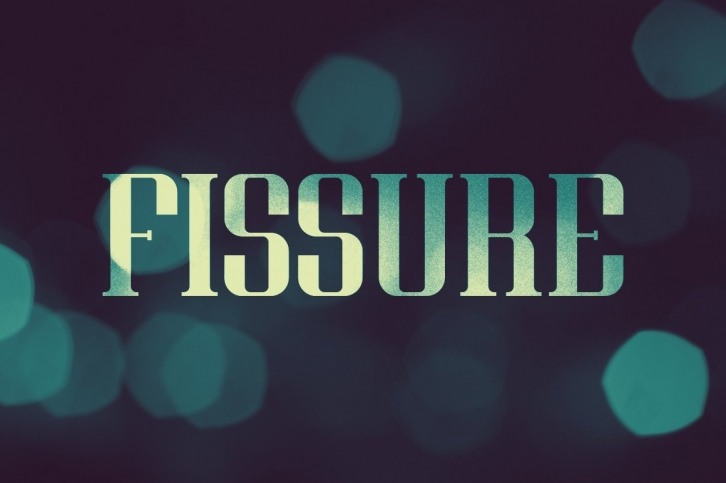
Fissure is the end result of an experiment in Adobe Illustrator gone horribly well. What first started out as a capital O made with a rounded rectangle with a thick inner stroke applied, then expanded soon turned into the creation of a whole alphabet in a matter of hours. Since Fissure is my 4th font, I've learned a thing or two about what works best when making a font and applied that knowledge when designing and compiling this font. Hope you guys like it!